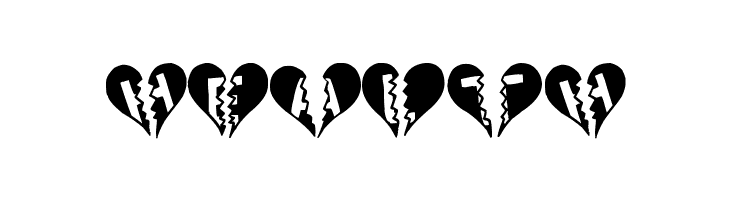
*heart2heart* Font
A playful font with characters inside heart shapes, featuring stick figures.
AC3 Hearts2 Font
A decorative font with heart motifs integrated into each character, offering a playful and romantic style.
101! Heart StringZ Font
A whimsical serif font with characters inside heart shapes, ideal for festive and romantic themes.
MC Sweetie Hearts Font
A whimsical script font with heart motifs and decorative flourishes.
Hearts Salad Font
A diverse collection of heart-themed symbols with creative and artistic variations.
Kingdom Hearts Font
A bold, gothic-inspired font with sharp, angular lines and intricate detailing.
101! Hang Your Heart Font
A decorative font with characters inside heart shapes topped with bows.
101! Heart Framed Font
A decorative script font with characters enclosed in floral heart frames.
Heart Warming Extra Font
Hand-drawn, whimsical dingbat icons with a warm, playful style.
DJ Candy Heart Font
A whimsical, heart-themed decorative font perfect for romantic and playful designs.
Hearts -BRK- Font
A decorative font with characters inside heart shapes, perfect for romantic designs.
He Formed My Heart Font
A playful handwritten font with heart motifs and smooth strokes.
Always In My Heart Font
A playful and flowing script font with smooth, rounded curves.
2Peas Heart's Delight Font
A playful, heart-adorned font with a hand-drawn, whimsical style.
101! Heart Deco Font
A decorative font with characters encased in heart shapes, perfect for romantic themes.
Country Hearts Font
A playful font with letters inside heart shapes, perfect for romantic or whimsical designs.
Hearts Font
A whimsical font with characters inside heart shapes with wings.
Hearts and Flowers Font
A decorative font with floral and heart motifs, perfect for romantic themes.
Heartland Regular Font
A bold, decorative font with heart motifs, perfect for romantic and playful designs.
101! Walkin' Heart Font